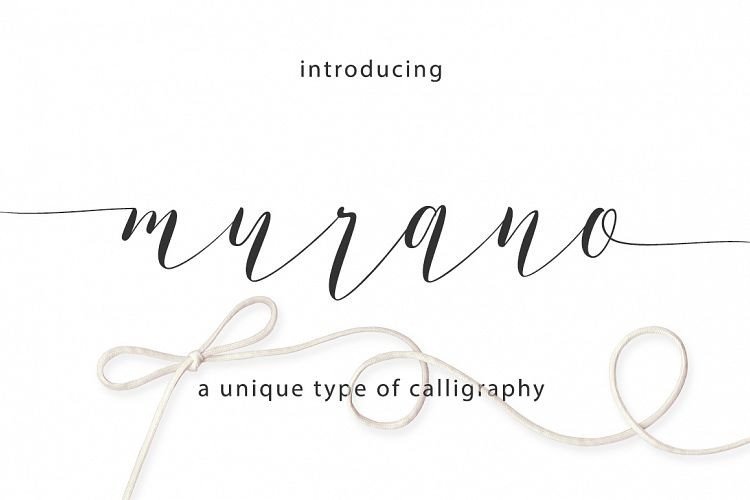
Murano Script Font
Murano Script is the newest type of flat top calligraphy and will be very beautiful for every type of design you have
With this modern script style this font will be perfect for many different ex projects: quotes, blog headers, posters, weddings, branding, logos, fashion, clothing , Letters, invitations, stationery, etc.
Murano Script has 320+ glyphs and 130 alternate characters. Including start and terminal letters, ligatures, and multiple language support.